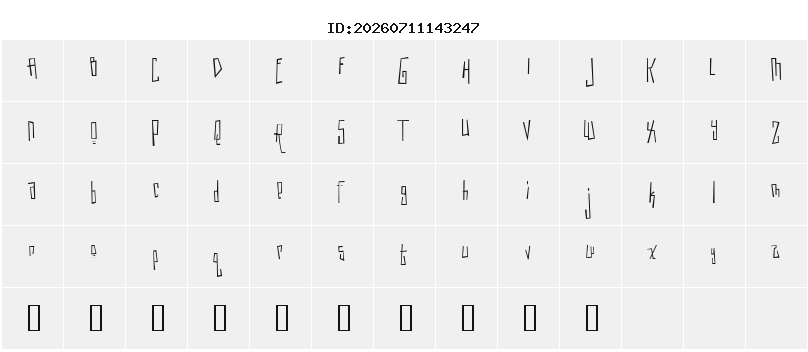
• Font Name: Maple Serum
• Full Font Name: Maple Serum
Maple Serum.ttf is a modern, elegant sans-serif font designed for ultimate readability and visual harmony. Perfect for branding, headlines, web design, and print materials.